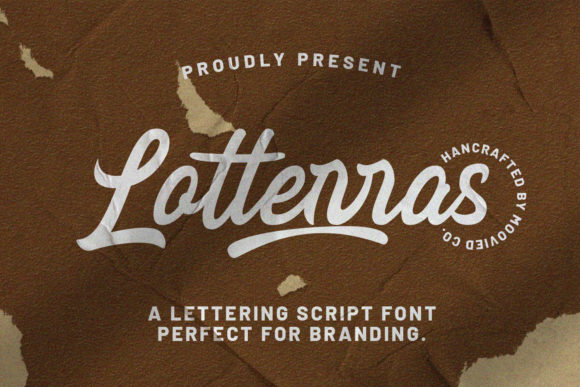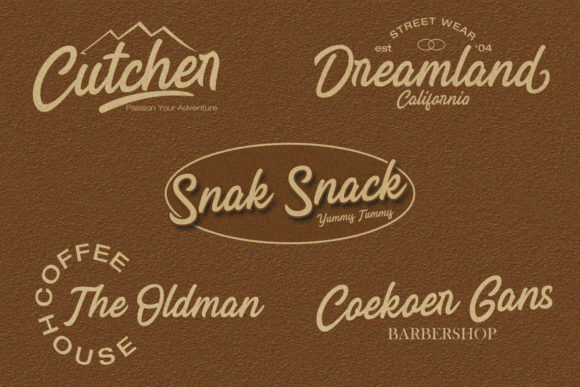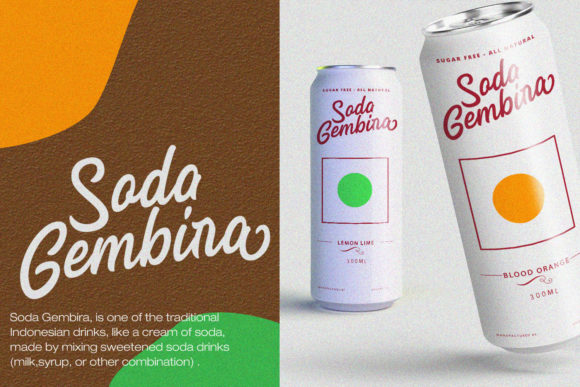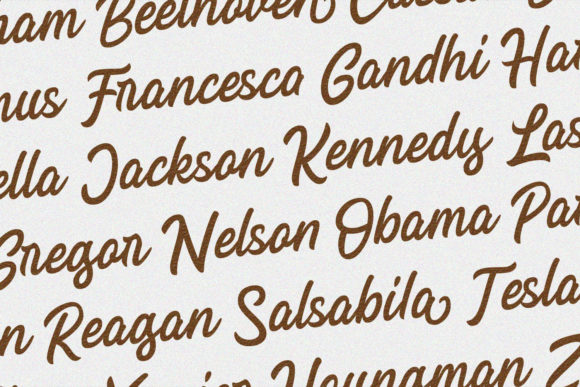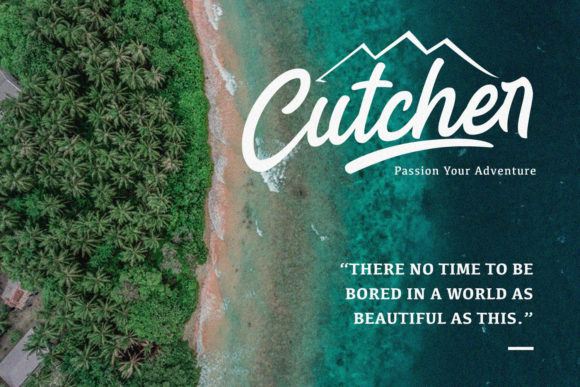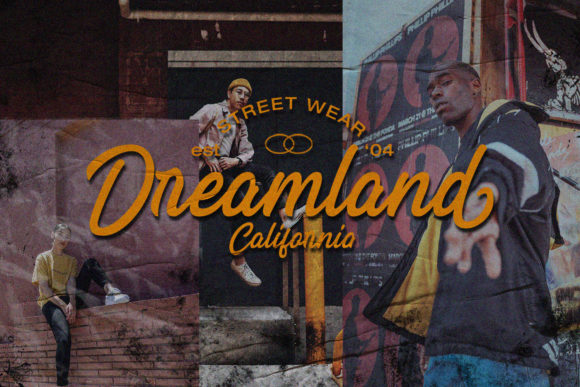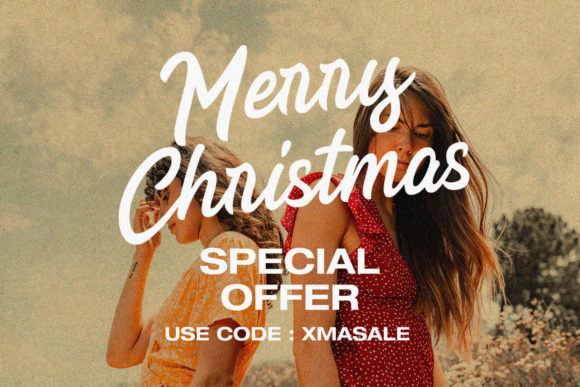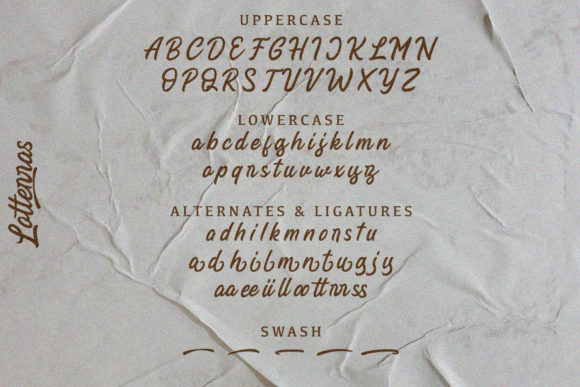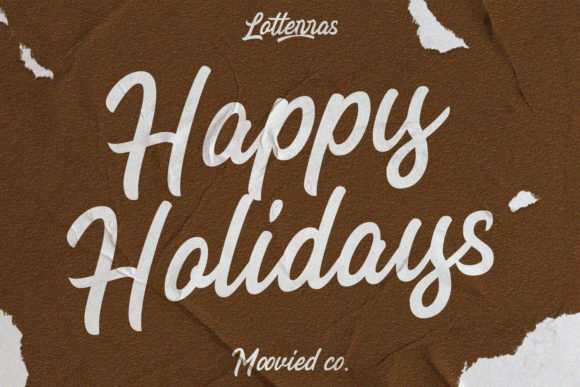
Lotterras Font
About Lotterras Font
Lotterras is a fancy script font made with a brush pen. Its versatility makes it perfect for a wide range of applications, from amazing logos to eye-catching social media posts and much more!